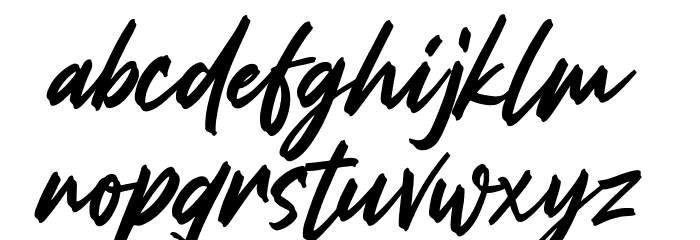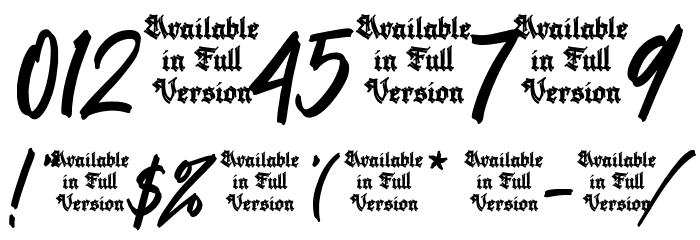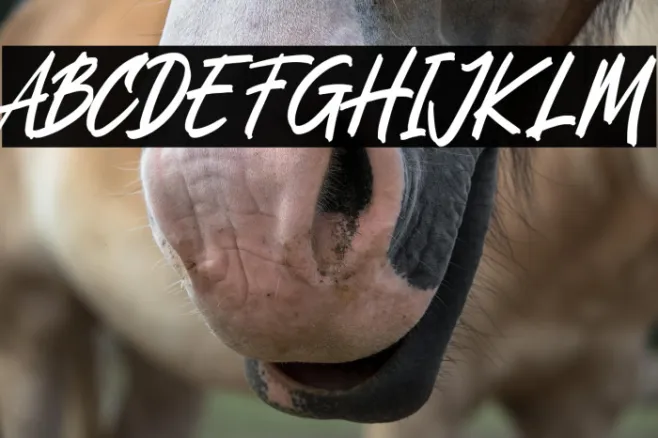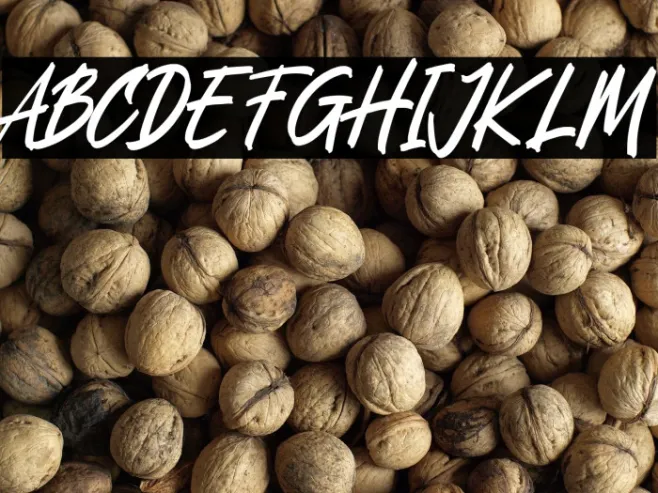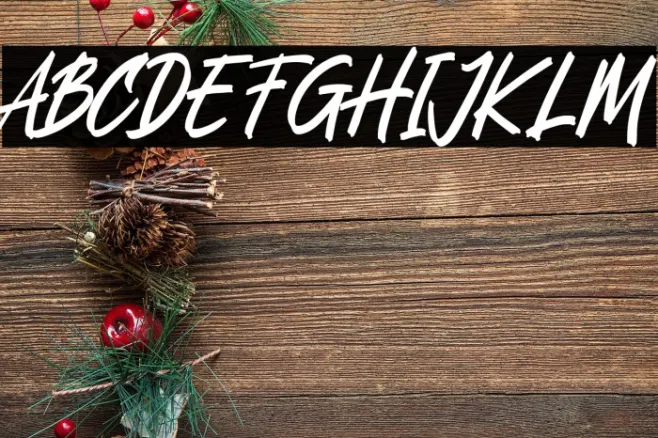
Roseshade Font
This font exhibits a bold and dynamic script style, characterized by its fluid and energetic strokes. The uppercase letters are particularly striking, with a sense of movement and flair that suggests a handwritten quality. The lowercase letters maintain this fluidity, offering a cohesive and harmonious appearance. Numbers and special characters are consistent with the overall style, ensuring versatility across different uses. The font's brush-like texture adds a personal and artistic touch, making it suitable for creative and expressive projects.
A bold, dynamic script font with fluid, energetic strokes and a handwritten feel.
- Font: Roseshade
- Proposed Projects: Ideal for branding, logos, invitations, and creative projects that require a personal touch.
- Category: Script
- Use Case: Logos, Invitations, Creative projects